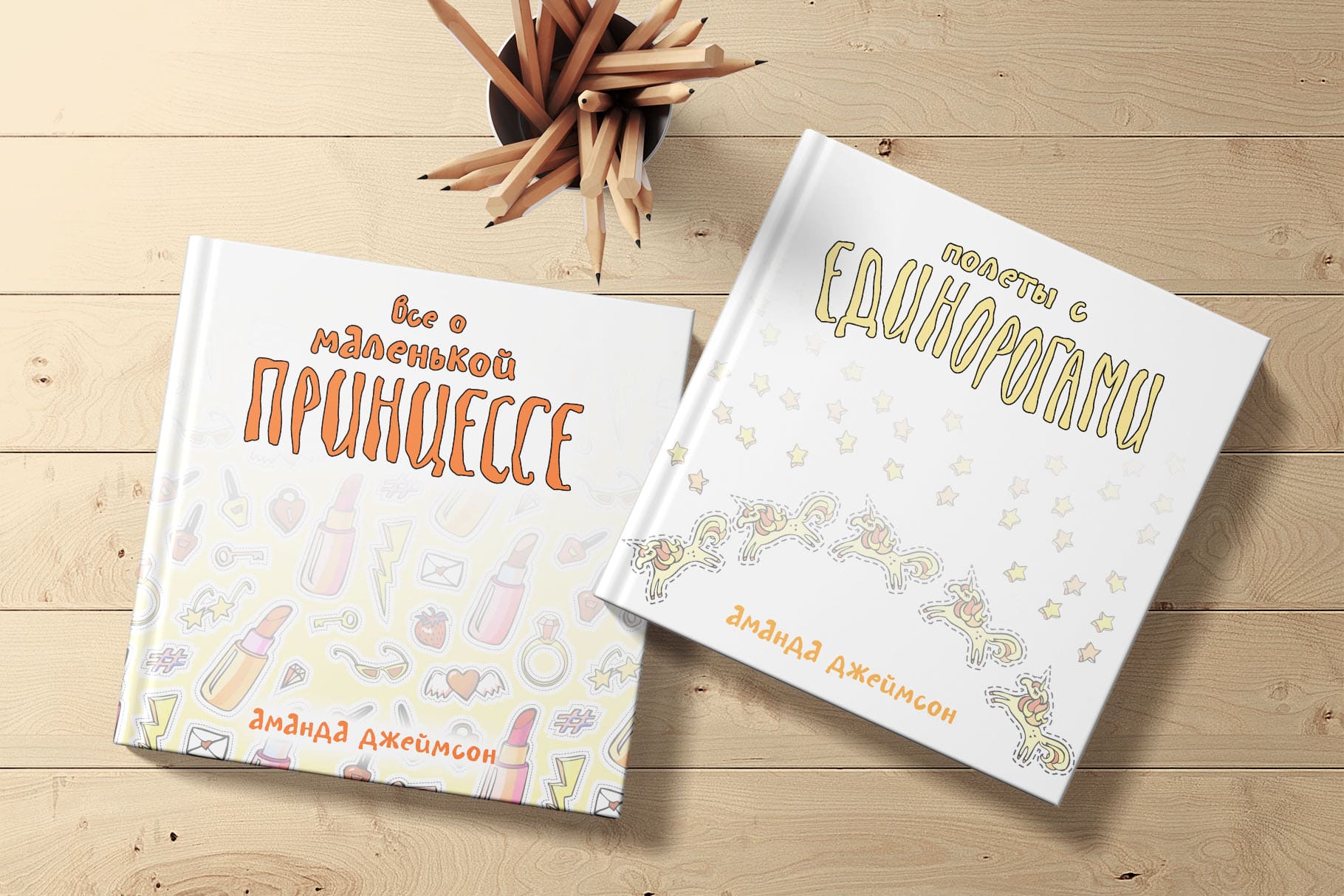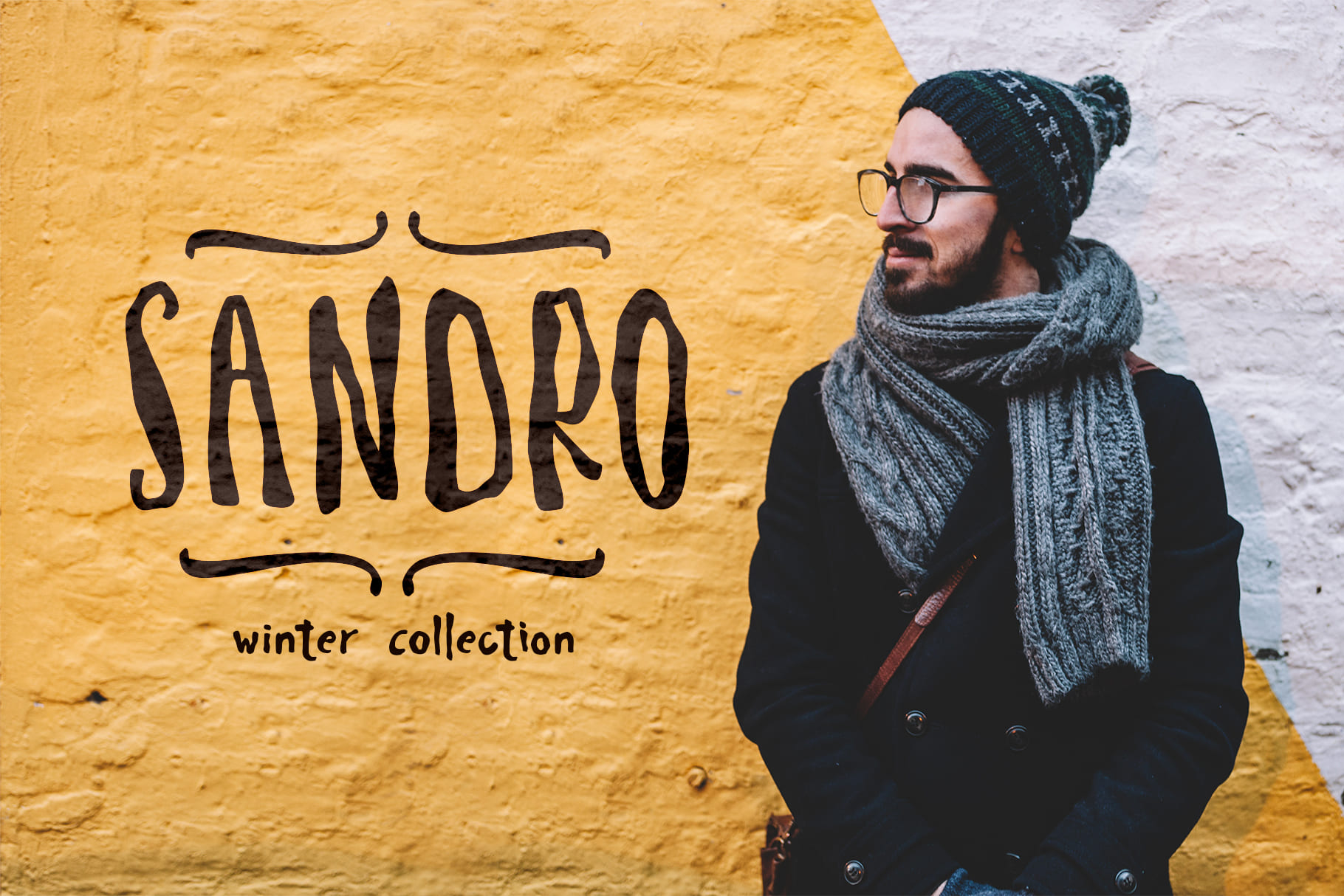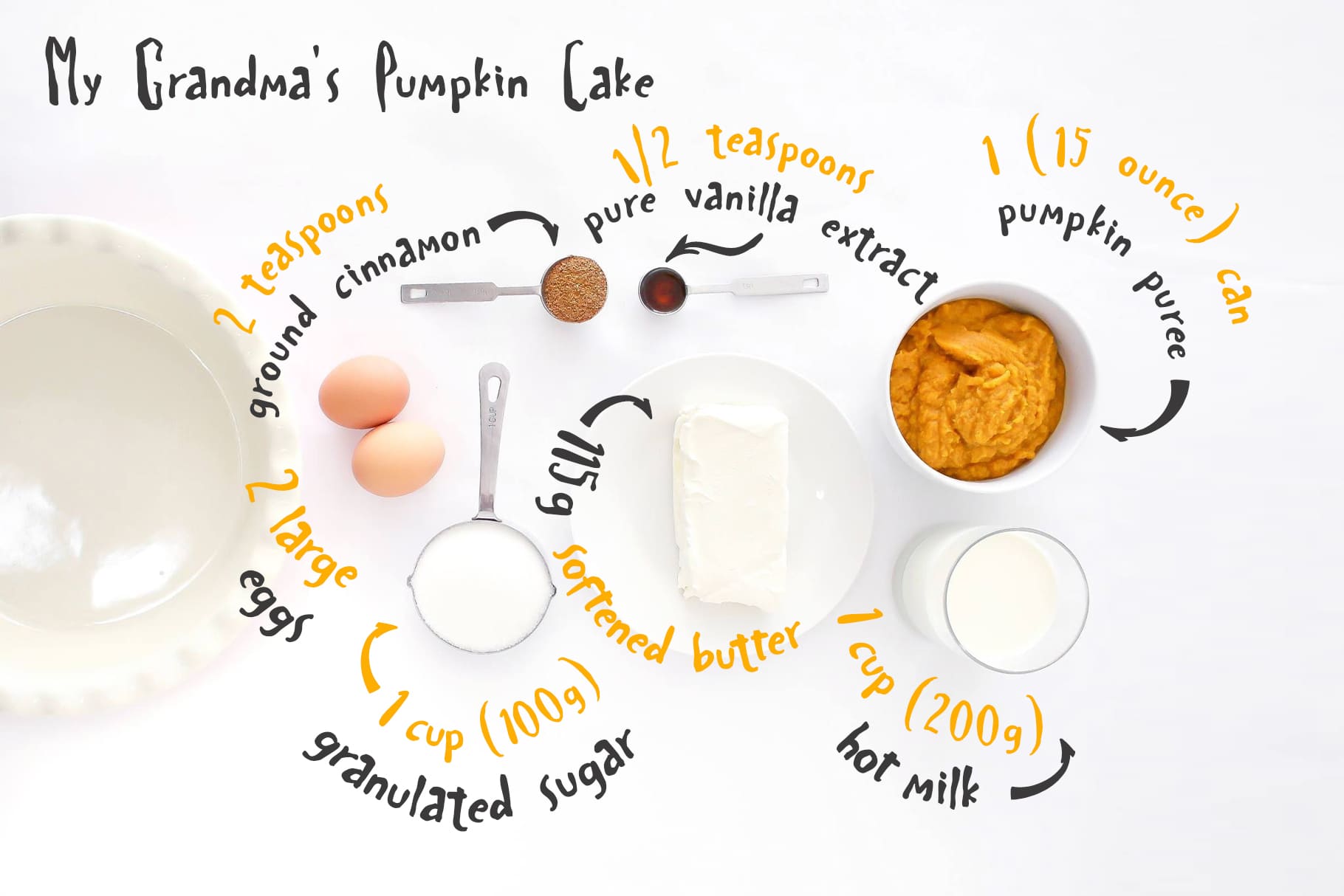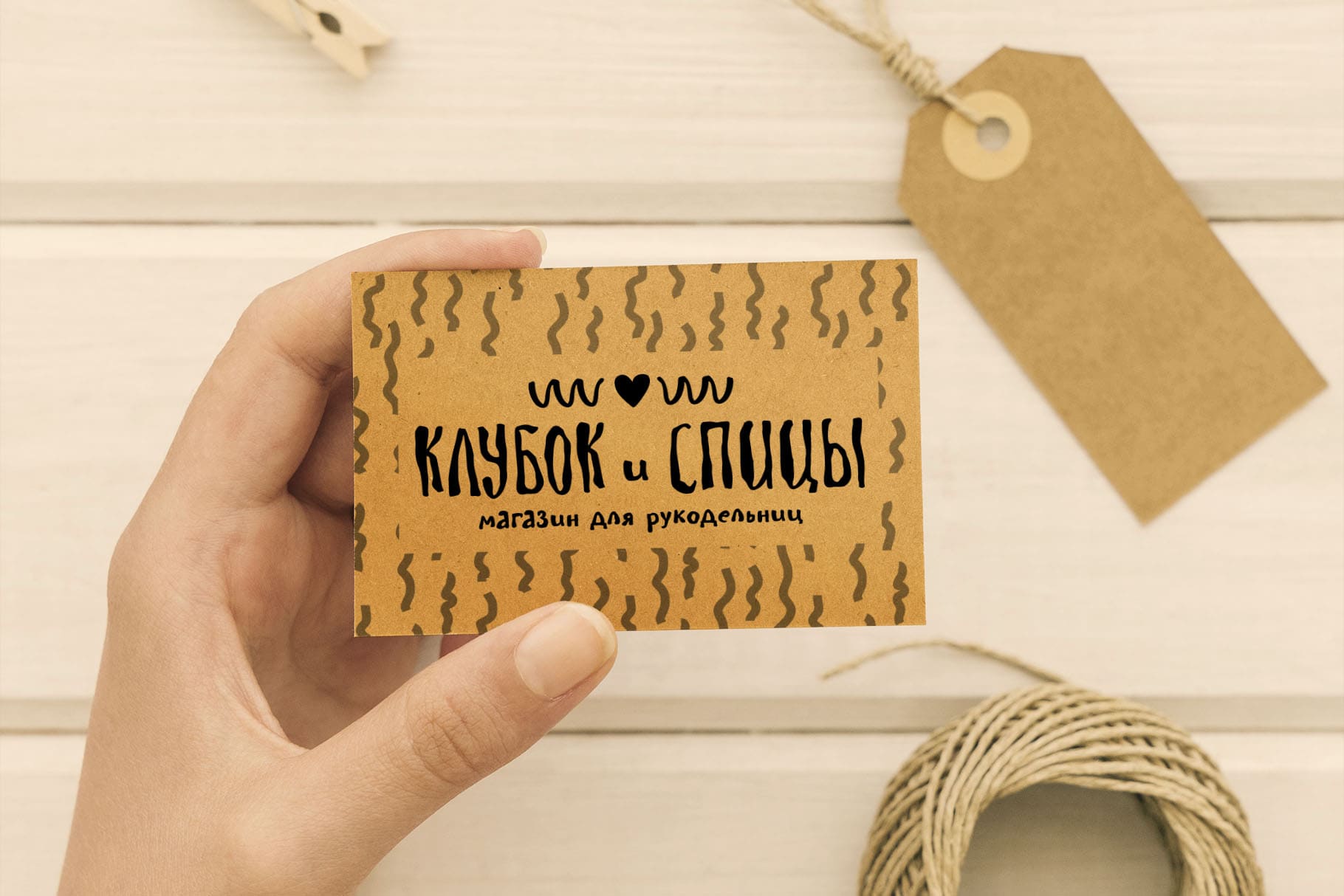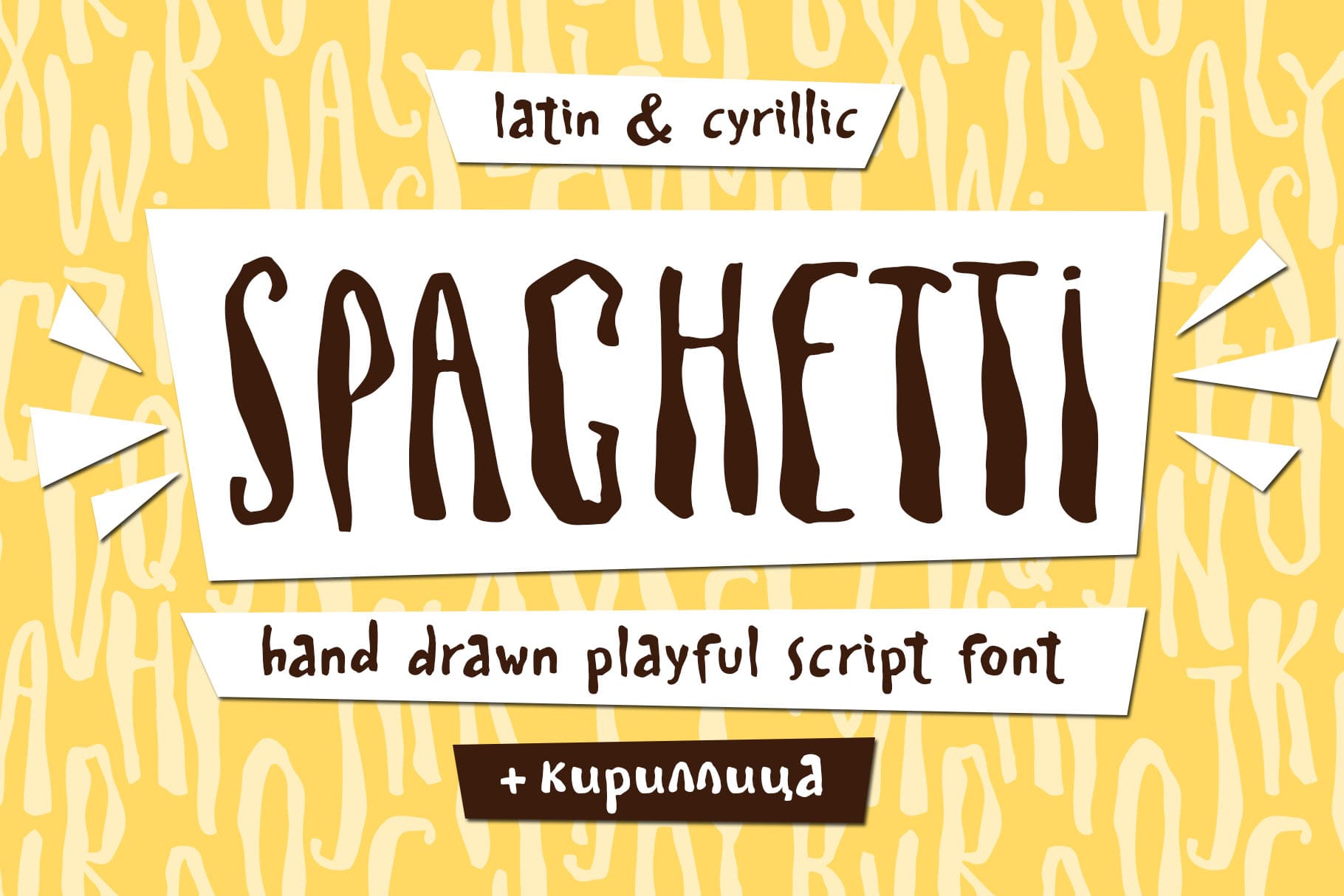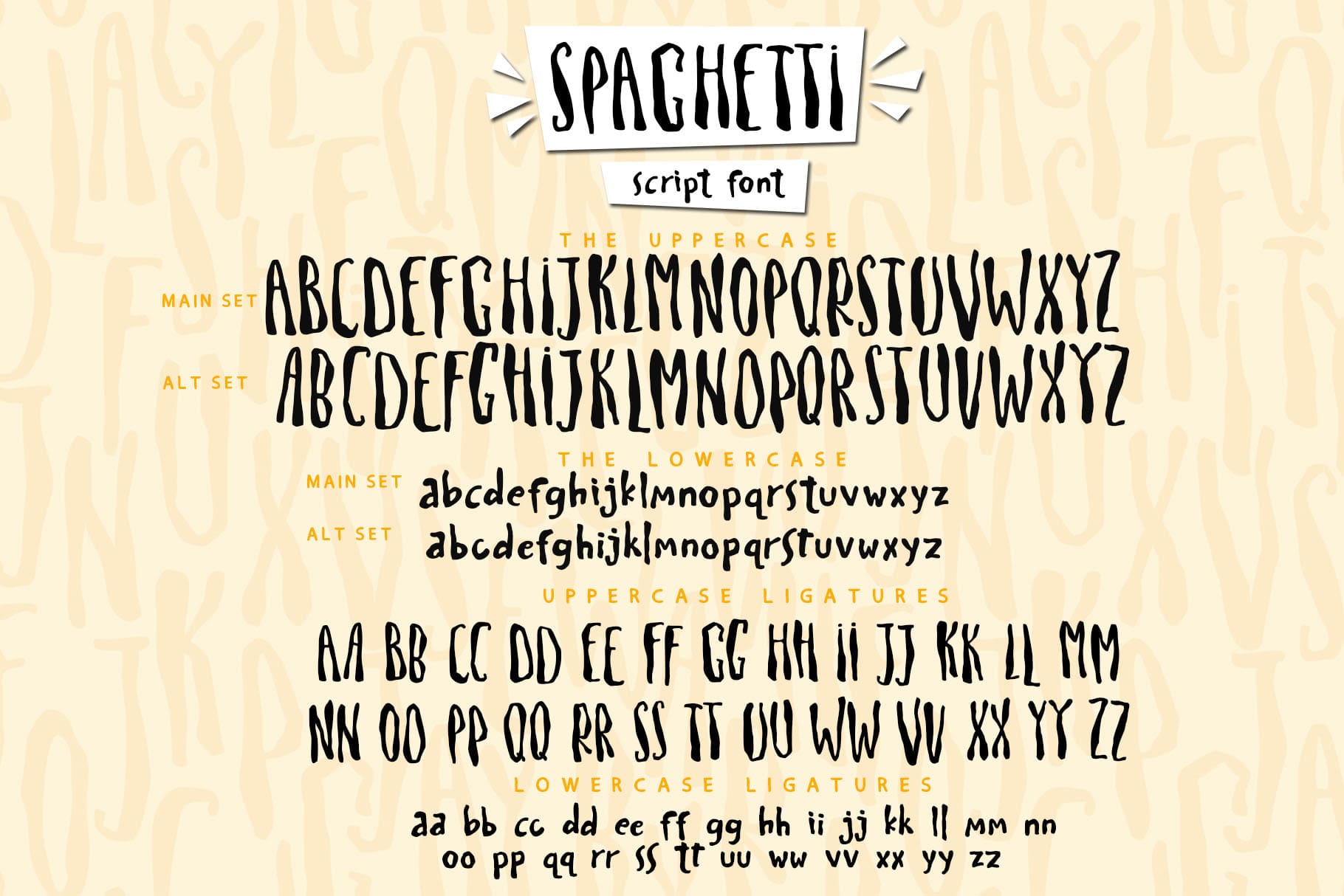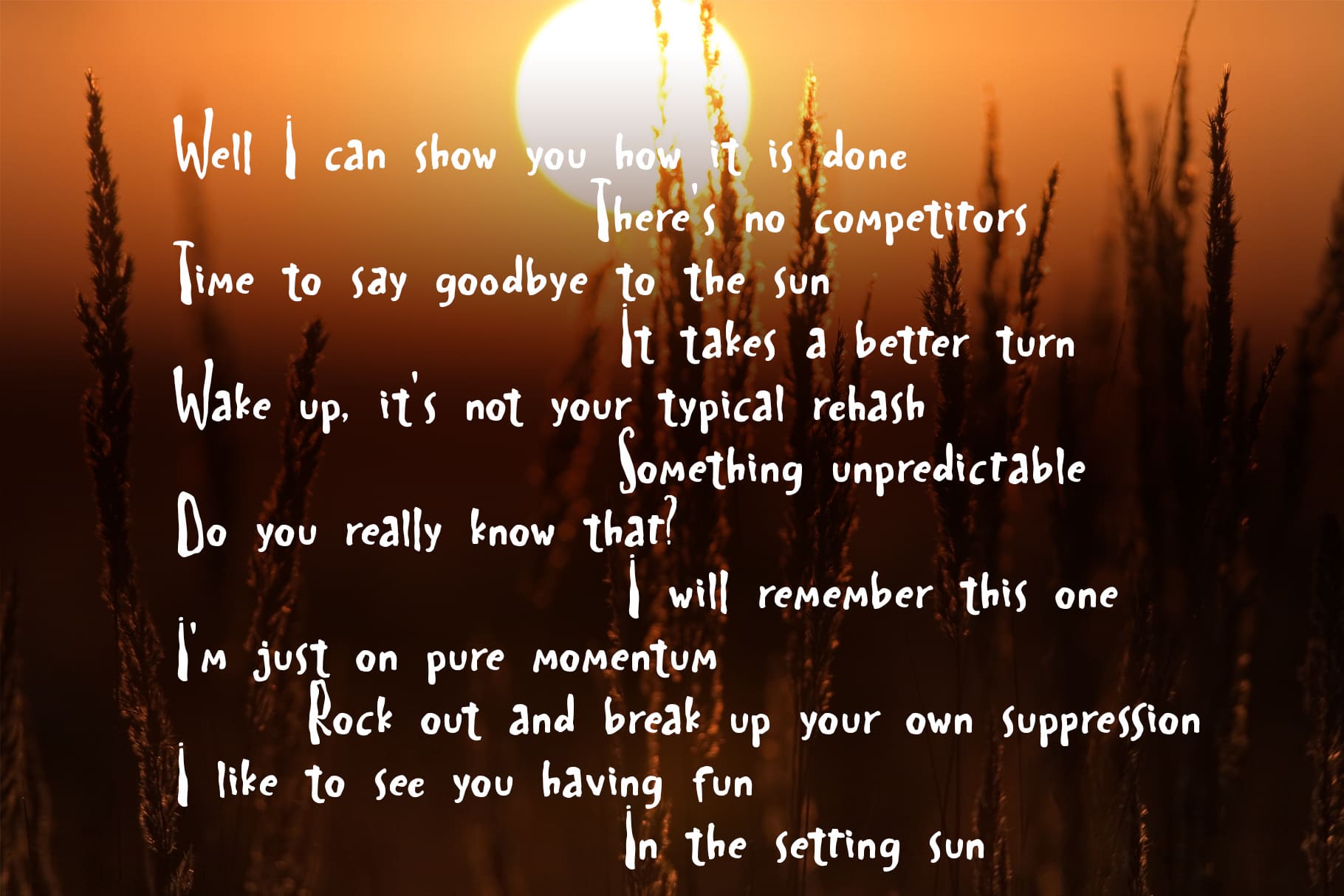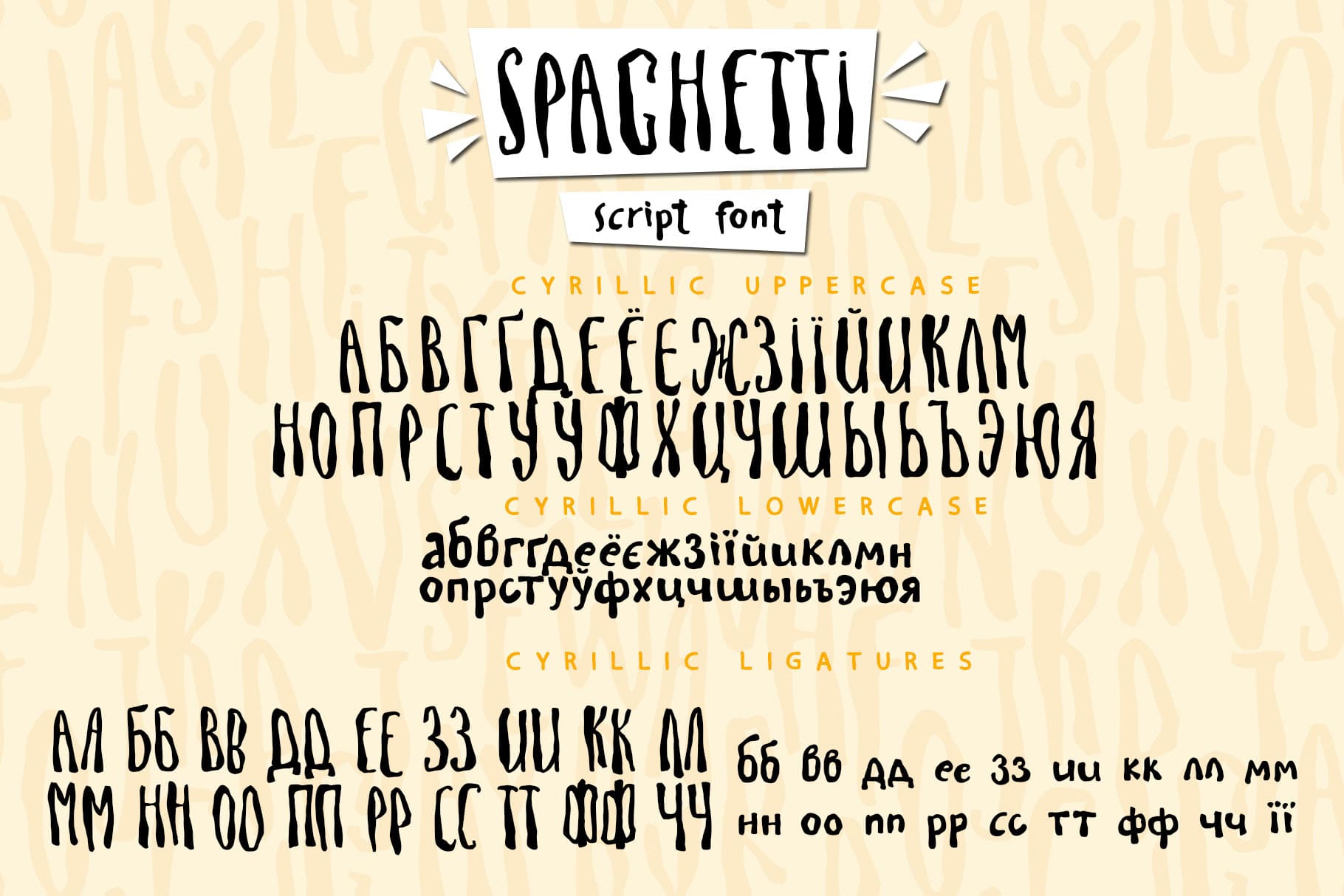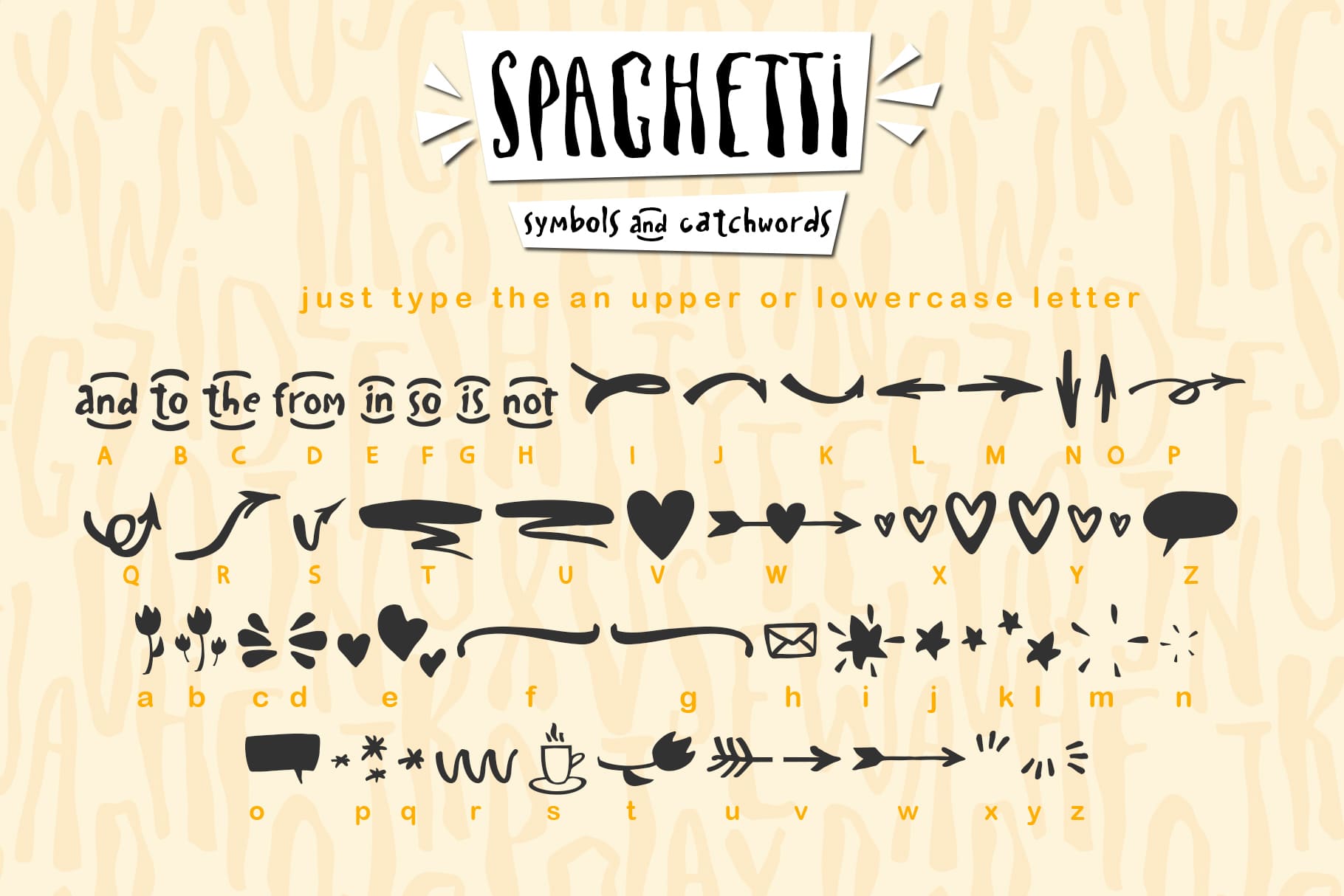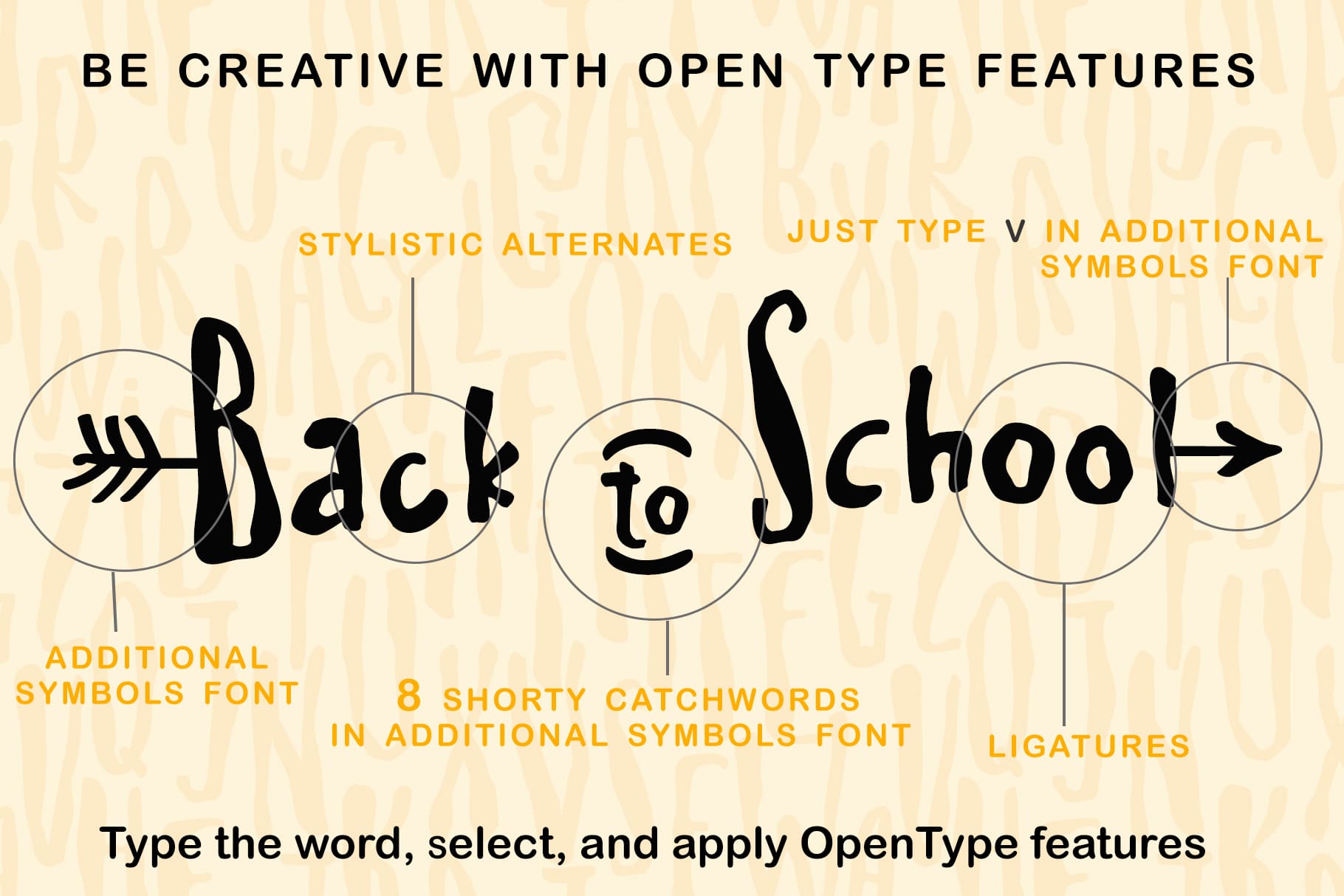
Spaghetti Family (2 fonts)
The Spaghetti Symbols font contains 52 hand-drawn doodles, catchwords, arrows, and swashes. Combine and arrange swashes and illustrations to create your own borders, frames, logos and more (just use A-Z and a-z keys in the included Spaghetti Symbols font).
Spaghetti also contains a full set of uppercase and lowercase Cyrillic characters
Multilingual Support for 27 languages:
Afrikaans, Albanian, Basque, Bosnian, Catalan, Danish, Dutch, English, Estonian, Faroese, Filipino, Finnish, French, Galician, Indonesian, Irish, Italian, Malay, Norwegian Bokmål, Portuguese, Slovenian, Spanish, Swahili, Swedish, Turkish, Welsh, Zulu. And Cyrillic glyphs support for Russian, Belorussian, Bulgarian and Ukrainian languages.